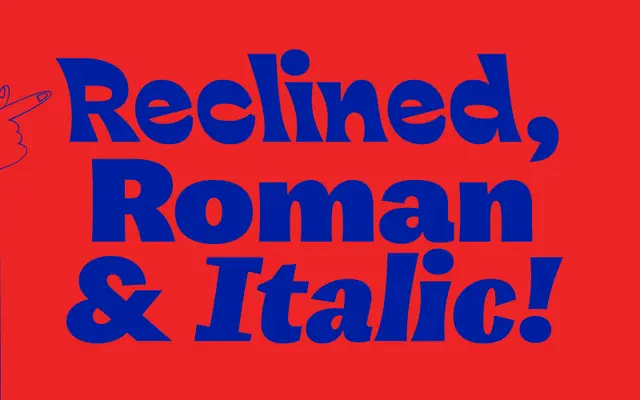
Granda specimen from The Designers Foundry
A 27-style grotesque with lively proportions and an unusual reclined axis, packaged in a single variable font.
Drawn from early grotesque models rather than the cleaned-up Swiss tradition, Granda brings visible quirks and warmth to a genre often associated with sterility. The family spans nine weights from Hair to Heavy, each available in upright, italic and a distinct reclined variant that tilts in the opposite direction to the italic. All 27 styles are accessible via a variable font with weight and slant axes, and OpenType features include proportional oldstyle and tabular lining figures.
Explicitly rooted in the Grotesk genre with lively proportions and quirky details drawn from early grotesque models, distinguishing it from the sterile neutrality of later Swiss grotesques.